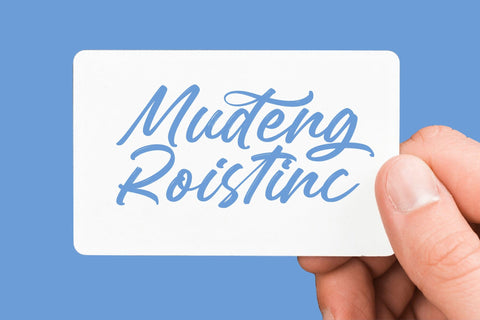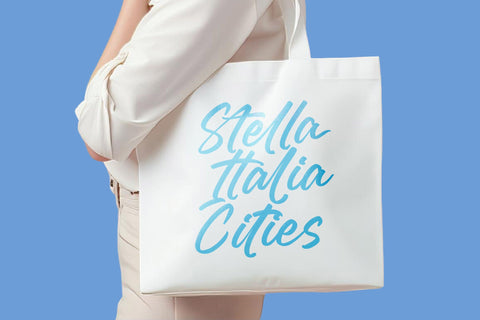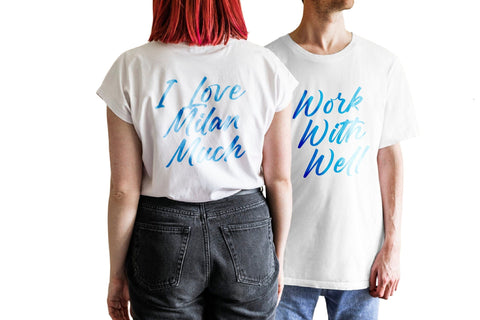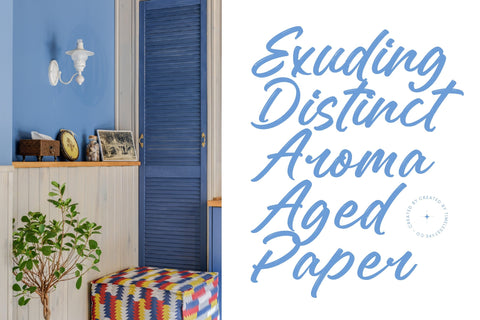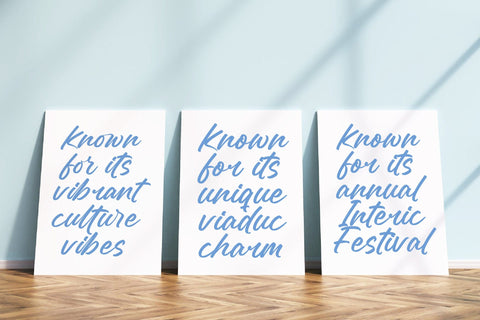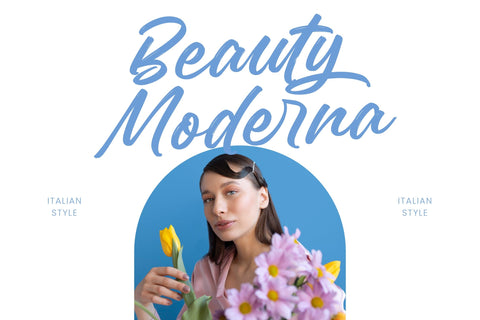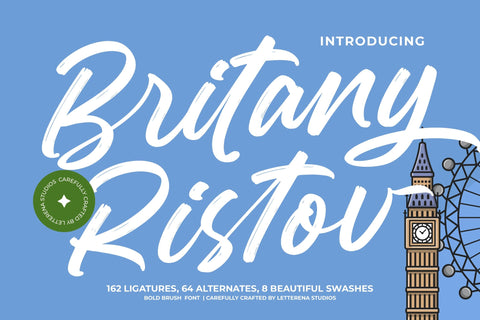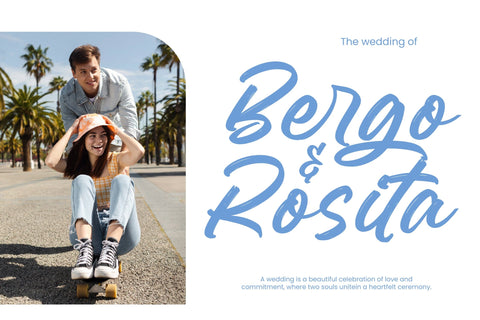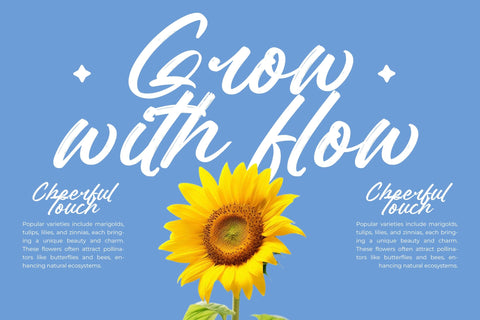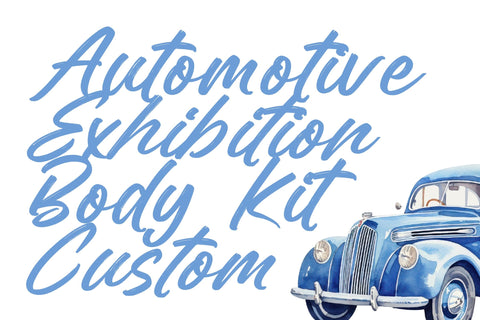
Britany Ristov - Bold Brush Font
Britany Ristov - Bold Brush Font , from Letterena, is a Luxury Script font, suitable for any projects such as: logos, branding projects, homeware designs, product packaging, mugs, quotes, posters, shopping bags, t-shirts, book covers, name card, invitation cards, greeting cards, label, photography, watermark, special events, and all your other luxury and beautiful projects that need a Luxury Script taste.
Ligature 162 Alternate 64 & 8 Swashes